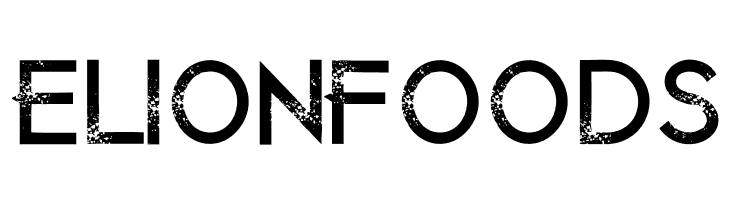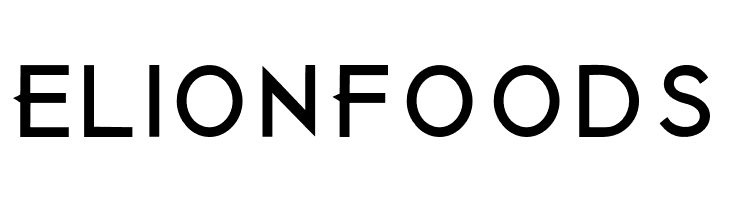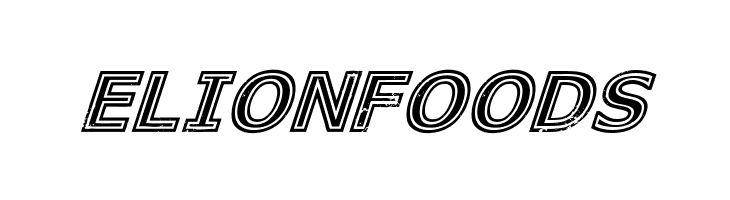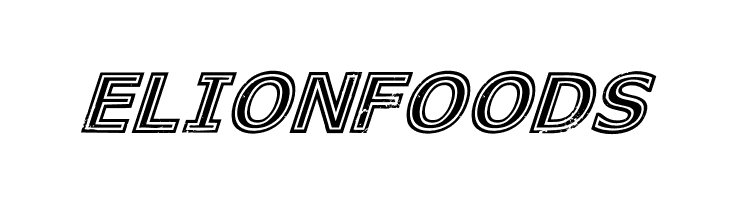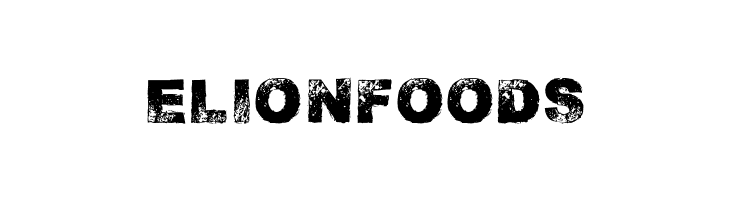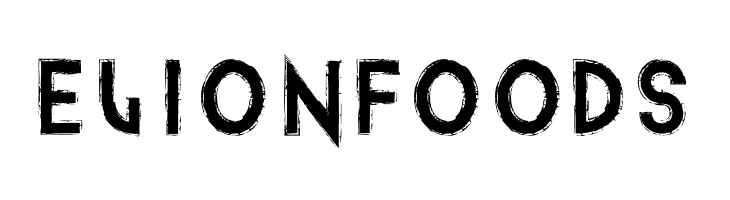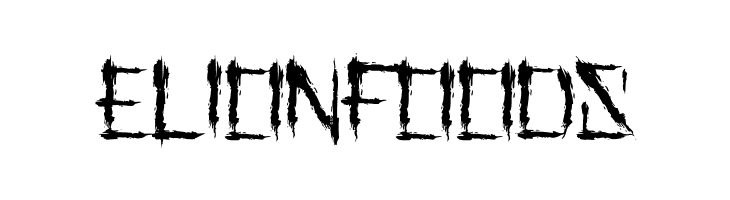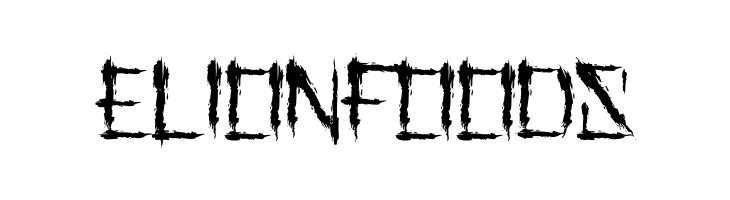
A bold, distressed font with a grunge aesthetic and geometric structure.
A bold, modern font with clean, geometric lines and consistent design.
A bold, italicized font with a distressed texture for a rugged, edgy look.
Bold, italicized font with a distressed, textured style.
A bold, distressed font with a grunge, decayed texture and sharp descenders.
A bold, distressed font with sharp, pointed extensions and a grunge texture.
A bold, angular font with a distressed texture, perfect for impactful designs.
A bold, distressed font with sharp, angular edges and a rugged aesthetic.
A decorative, distressed font with a gothic, horror-inspired style.
A rugged, distressed font with sharp, jagged edges and a bold, impactful style.